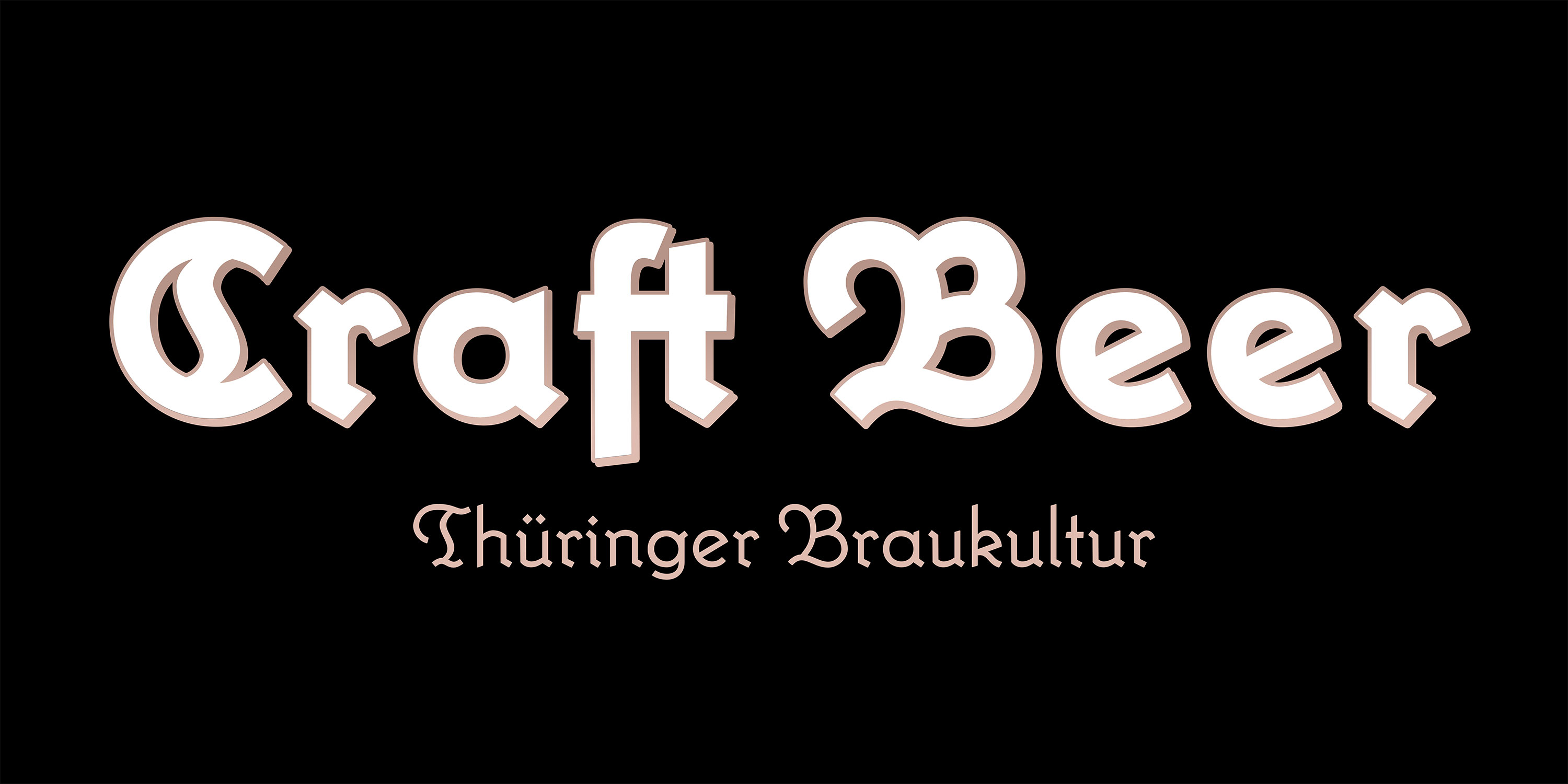
Krimhilde Font demonstrates exceptional versatility across medieval-inspired design applications including fantasy game interfaces, gothic novel covers, medieval restaurant branding, historical museum exhibitions, renaissance festival materials, medieval-themed wedding invitations, ancient manuscript reproductions, gothic architecture signage, dark fantasy movie titles, and legendary storytelling publications. This majestic typeface seamlessly combines Germanic heritage with timeless gothic elegance, making it an invaluable resource for designers working on projects that require historical authenticity, legendary character, and the powerful presence of ancient European traditions.
What makes Krimhilde Font particularly exciting is its masterful interpretation of medieval Germanic calligraphy that captures the essence of legendary Norse and Germanic sagas through bold, regal letterforms that seem to echo with the voices of ancient warriors and noble queens. The font features strong, angular characters with distinctive gothic elements and commanding proportions that evoke the power of medieval manuscripts and the artistic traditions of Germanic royal courts. Its sophisticated design incorporates ancient calligraphic principles with contemporary readability standards, creating perfect harmony between historical authenticity and modern functionality. The typeface's ability to convey both nobility and strength makes it perfect for brands seeking to establish connections with European medieval heritage and legendary storytelling traditions. Each character has been meticulously crafted to reflect the artistic mastery of Germanic scribes while ensuring optimal performance across contemporary design applications and international markets.
The Krimhilde Font family encompasses powerful variations including Light, Regular, Bold, and Black weights, each maintaining the core gothic aesthetic while offering distinct levels of medieval intensity and regal presence. The family also features condensed versions for space-efficient legendary applications and extended variants for grand medieval headline treatments. Special decorative cuts may include ornamental capitals inspired by illuminated manuscripts, flourished alternates reflecting monastery traditions, and runic-inspired styles that enhance the font's ancient Germanic character for authentic historical branding applications.
Medieval heritage professionals consistently choose Krimhilde Font Free Download for projects requiring authentic Germanic elegance and legendary historical appeal. This remarkable typeface has gained recognition in the fantasy and historical markets for its ability to communicate ancient power and noble heritage through thoughtful typographic design inspired by Germanic medieval traditions. The font's comprehensive OpenType features include stylistic alternates, medieval ligatures, and ornamental elements that support sophisticated historical branding and authentic Germanic cultural communication.
Whether you're developing fantasy gaming identities, creating medieval event materials, designing historical publications, or crafting legendary storytelling communications, Krimhilde Font delivers exceptional results. Its gothic aesthetic makes it particularly suitable for fantasy games, medieval restaurants, historical institutions, renaissance events, and entertainment brands seeking to communicate ancient power, Germanic heritage, and the timeless appeal of legendary European traditions through their visual identity.
The font's technical specifications ensure flawless performance across all medieval applications while preserving its authentic gothic character. It includes comprehensive Unicode support for Germanic and international historical markets, making it suitable for global fantasy brands and multilingual medieval projects. The careful optimization guarantees majestic rendering across various historical media, maintaining the font's powerful qualities whether displayed on digital gaming platforms or reproduced in high-quality historical materials.
Professional designers appreciate Krimhilde Font's ability to convey Germanic heritage and medieval nobility while maintaining commercial effectiveness and brand distinction. Its regal presence creates immediate associations with ancient power and legendary traditions while remaining highly functional for comprehensive fantasy branding systems. The font's Germanic-inspired design helps organizations establish credibility in historical and fantasy markets while connecting with audiences who appreciate medieval culture, legendary storytelling, and the enduring power of ancient European heritage and noble traditions.